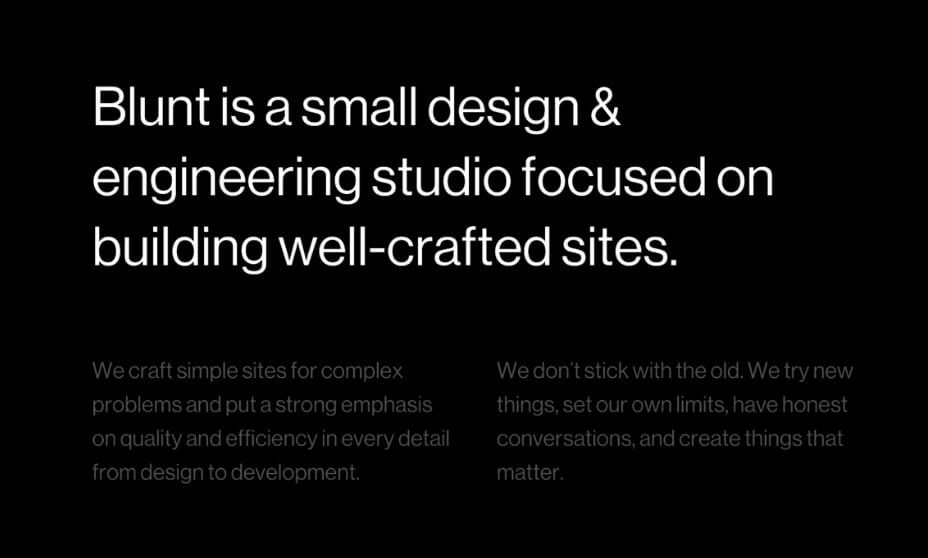
Neue Haas Grotesk Font
Neue Haas grotesk is a premium font style designed with the aid of max Riedinger in 1957-1958 for the Paasche schriftgiesserei in Switzerland, and artwork path with the aid of the manufacturer’s fundamental, Eduard Hoffmann.
Neue Haas grotesk is a blend of British and Germany font that looks like blastrick vintage that had turned out to be vastly popular because of the success of functionalist Swiss typography.